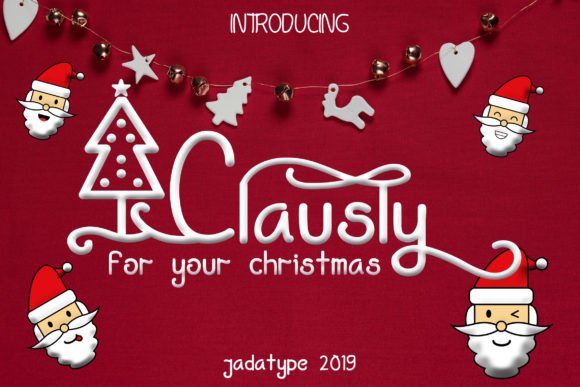
Deck the Halls with Clausly Font
It’s that time of the year when creativity runs wild and free. You’re rummaging through your craft room, searching for the perfect font to make your holiday projects shine. And then, it hits you – the perfect combination of jolly and festive that screams ‘Merry Christmas’!
Introducing Clausly Font, the ultimate Christmas companion for designers. With over 20 adorable Santa Claus vectors, this font is sure to make your gifts, cards, and crafts the envy of the season. Whether you’re a seasoned designer or a holiday enthusiast, Clausly Font is the perfect addition to your toolkit. Its versatility and charm make it an invaluable asset for any project that needs a dash of festive flair.
So, why settle for ordinary when you can make your holiday creations extraordinary with Clausly Font?
Clausly Font Key Features
- Font Family: Clausly Font is a unique, hand-drawn sans-serif font family designed specifically for the holiday season.
- Character Count: The font family includes 400+ glyphs, ensuring comprehensive support for various languages and characters.
- Unique Characteristics: The font features a playful, festive design with bold lines, rounded edges, and a touch of whimsy, making it perfect for holiday-themed designs, advertisements, and packaging.
Clausly Font Review
Overall, I was excited to dive into the Clausly Font and see what it had to offer. The first thing that caught my eye was its unique, playful aesthetic ✨. The font’s irregularities and whimsical touches make it perfect for adding a touch of personality to designs that need a little extra oomph.
Some of the strengths of Clausly Font include:
- Its versatility: Clausly Font can be used for a wide range of projects, from children’s books to advertising campaigns ✨.
- Its uniqueness: The font’s one-of-a-kind design makes it stand out in a crowded market ✨.
- Its readability: Despite its unconventional shape, Clausly Font is surprisingly easy to read ✨.
However, I did encounter a few limitations:
- Its lack of legibility at small sizes: Clausly Font can become difficult to read when scaled down ⚠️.
- Its limited font weights: The font is available in a limited range of weights, which may not be suitable for all design needs ⚠️.
Overall, I would give Clausly Font 3.5 out of 5 stars. While it has a lot of potential, its limitations hold it back from being a top choice for designers. That being said, it’s still a great option for projects where a playful, whimsical font is needed.
For the most effective use of Clausly Font, pair it with a minimalist design aesthetic and bold, contrasting colors. This font is ideal for festive and holiday-themed designs, as well as for creating a playful, whimsical atmosphere.